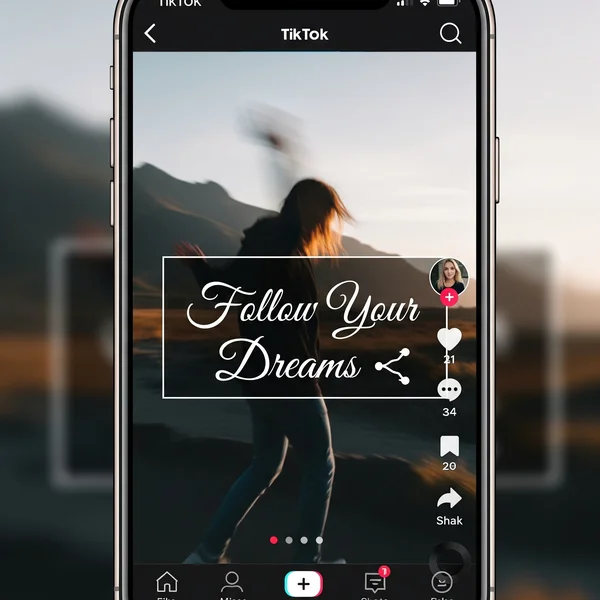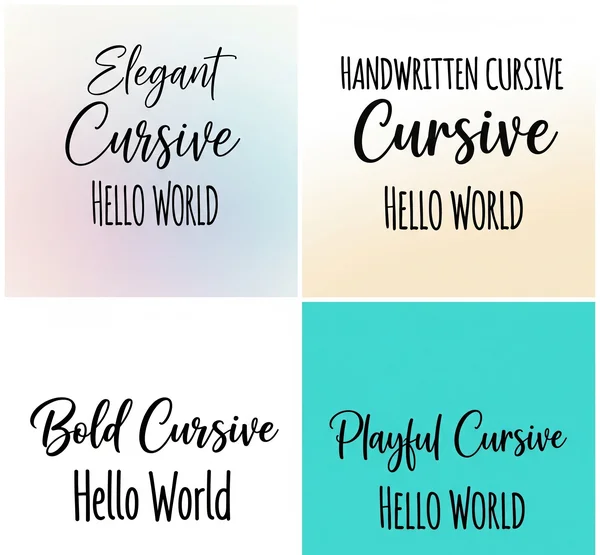
Cursive Fonts for Instagram & TikTok: Ultimate Guide
Ever feel like your social media posts just vanish into the endless scroll? In today's vibrant digital space, standing out isn't just an option—it's your superpower! From crafting a killer profile to making your posts absolutely pop, every detail totally counts. If you're tired of dull, uninspiring text that blends into the background, it’s time to seriously elevate your game. But how do I make my text cursive to truly capture attention? The secret lies in stunning cursive fonts, and with our powerful online tool, transforming your digital presence has never been easier. Get ready to effortlessly turn your ordinary messages into extraordinary statements, captivating your audience and boosting your online style.
Why Cursive Fonts Reign Supreme on Social Media
In a sea of standard Arial and Helvetica, unique fonts act as powerful visual anchors, drawing the eye and making your content instantly more appealing. Cursive fonts add a touch of elegance, playfulness, or rebellion, depending on the style you choose. They transform mere words into a statement of your personal brand or artistic flair, making your social media text unforgettable.
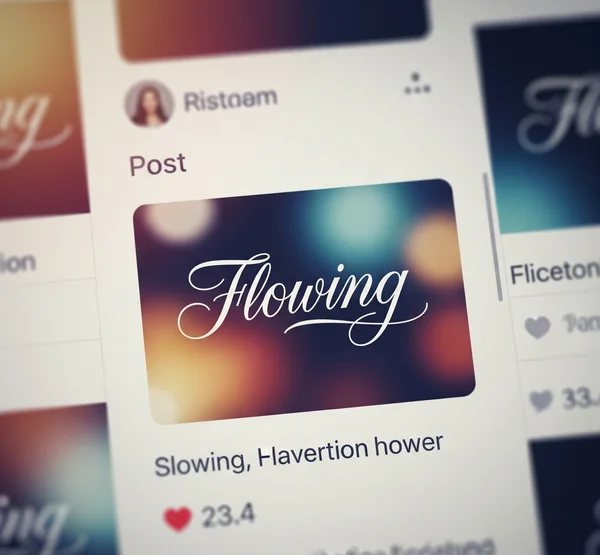
The Magic Behind Copy-Paste: Understanding Unicode Characters
Perhaps you’ve wondered: How do I get fancy fonts that I can copy and paste anywhere? The answer lies in Unicode characters. Unlike traditional font files that need to be installed on your device, the text generated by our generator isn't an image or a proprietary font. Instead, it leverages the vast Unicode character set. This means the beautiful copy and paste fonts you create are universal text characters. They display across almost all platforms, browsers, and devices, ensuring your unique style is seen exactly as you intended, whether it's on Instagram, TikTok, or anywhere else. This widespread compatibility is the core strength of our free tool for text conversion.
Elevate Your Brand & Personal Aesthetic with Unique Text
Think about your favorite social media profiles or brands. Chances are, they use unique visual elements to build their identity. Aesthetic fonts play a crucial role in this. By consistently using a distinct cursive style, you create instant recognition. This personalized social media text makes your content feel more curated, artistic, and reflective of your unique voice. It's so much more than just looking good! We're talking about building a consistent, jaw-dropping aesthetic that truly speaks to your followers and helps you effortlessly shine in that crowded digital landscape. Imagine the impact!
Mastering Instagram Cursive: Bios, Captions & Stories
Instagram is a visual-first platform where every pixel counts. Generic text can make your profile vanish into the scroll. This is where a fantastic Instagram font generator comes into play, turning mundane into magical.
How to Write in Cursive Font for Your Instagram Bio & Profile
Your Instagram bio is prime real estate—it’s the first impression you make. Why let it be boring? Using a cursive bio instantly makes your profile more intriguing and memorable.
It's that simple to create a stunning unique Instagram bio that grabs attention!
Jazzing Up Instagram Captions & Comments with Style
Beyond your bio, aesthetic captions can truly enhance your Instagram posts. Whether you're sharing a profound thought or a witty remark, adding cursive fonts makes your words visually appealing and more engaging. Use it for emphasis, to highlight specific phrases, or to introduce a new section in a longer caption. You can also deploy these fancy fonts in comments to make your interactions stand out, fostering more engagement and recognition. Experiment with different script fonts generator options to see what best fits your post's vibe.
Tips for Ensuring Perfect Cursive Font Display on Instagram
While Unicode characters offer incredible compatibility, it’s worth noting that very old devices or niche platforms might render some highly stylized characters slightly differently. Always do a quick check on your own device and perhaps a friend's to ensure your chosen Instagram font looks perfect. Our goal at Cursive Generator is to provide widely compatible copy and paste fonts, but a quick preview never hurts!
Unleashing TikTok's Potential with Trendy Cursive Fonts
TikTok is all about quick, captivating content. TikTok fonts can play a huge role in making your videos more visually dynamic and your text overlays truly pop, helping you ride the wave of trends.
How Do I Make My Text Cursive for TikTok Videos & Overlays?
Adding cursive fonts to your TikTok videos can make your messages more impactful and your overall video more engaging. Whether it’s a quick on-screen caption, a list of points, or a call-to-action, unique text adds visual interest.
How do I get fancy fonts that I can copy and paste anywhere?